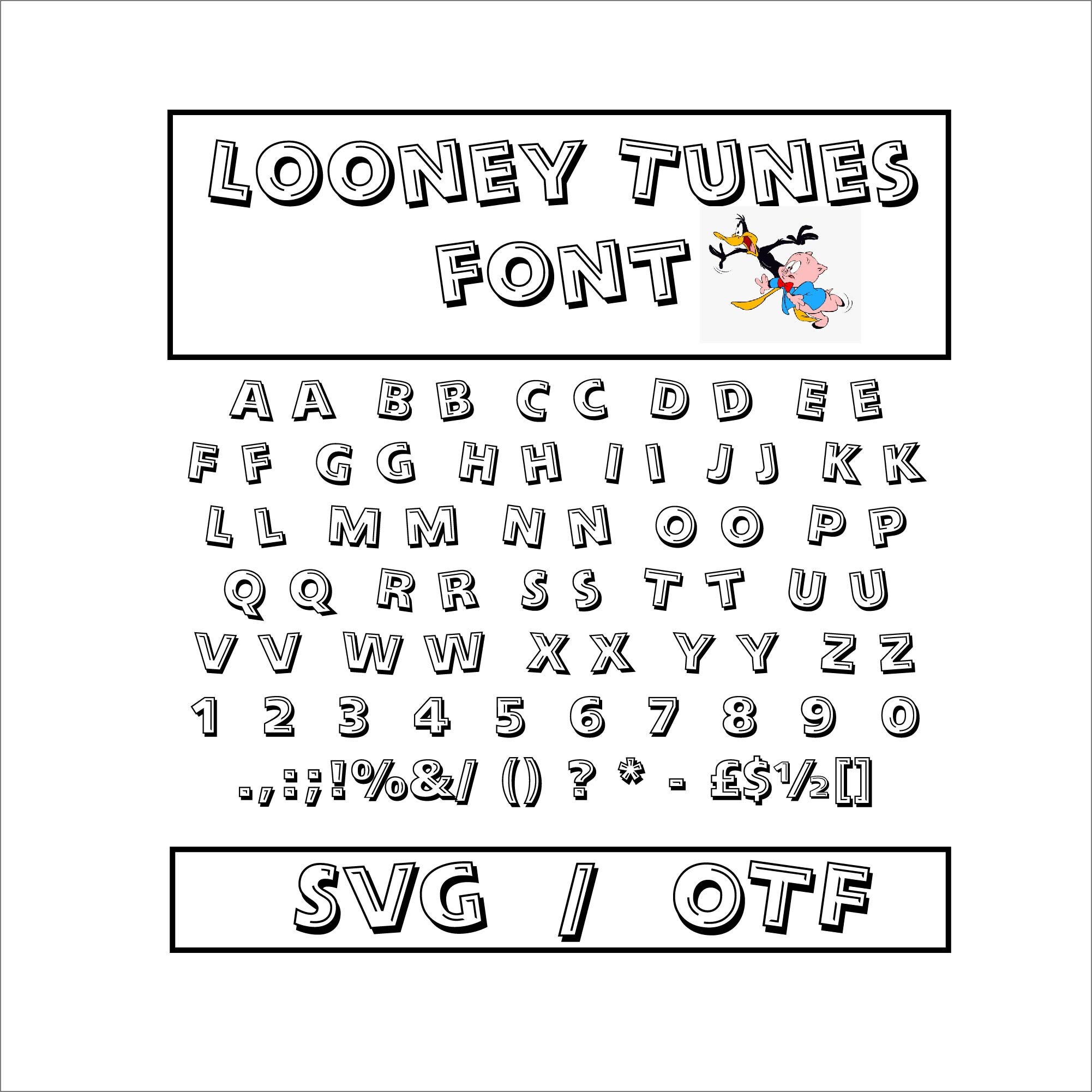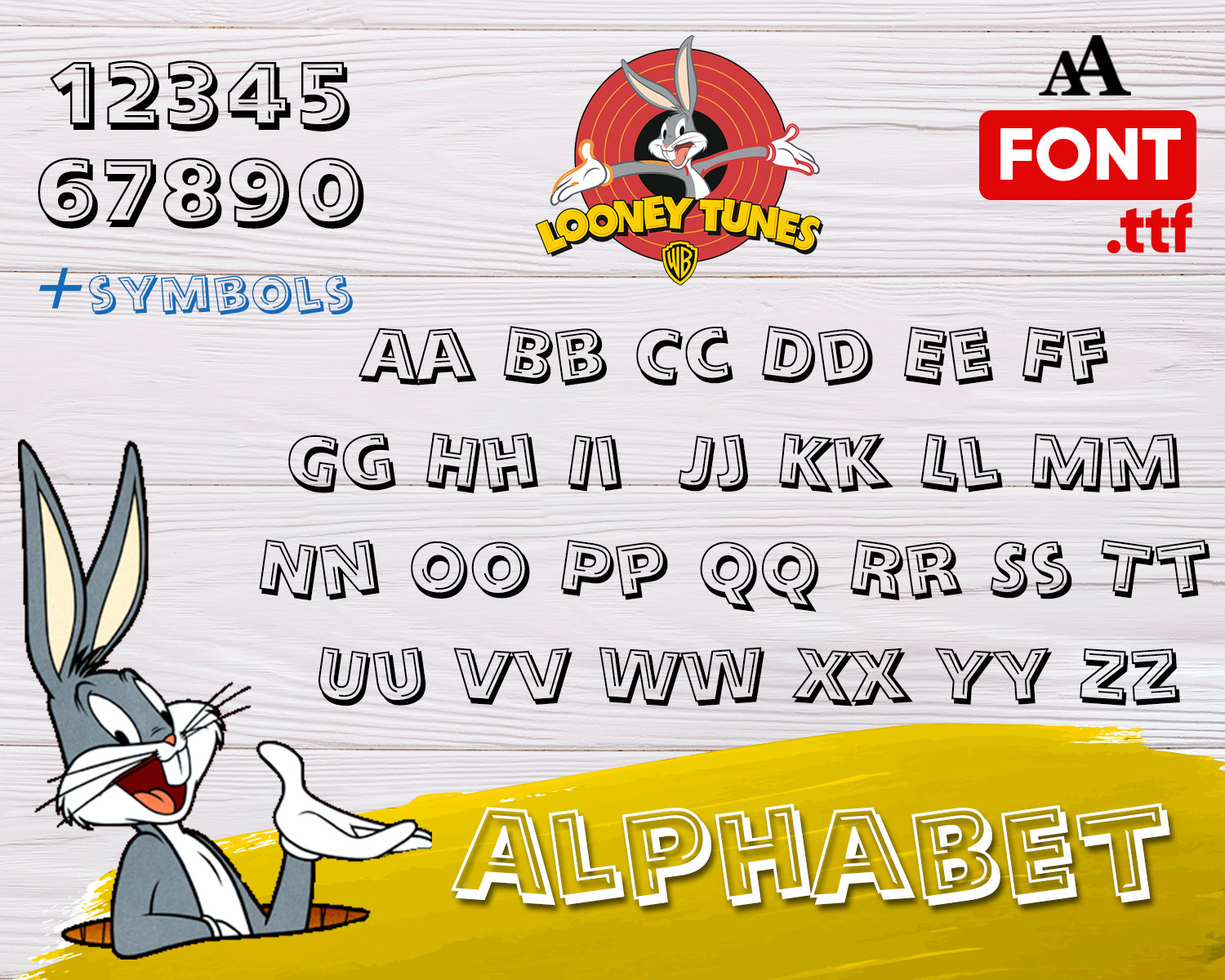
Loony Tunes Font
Loony Tunes Font - Web we are happy to bring you an appealing typeface, looney tunes. It’s totally based on looney tunes movie.
Web we are happy to bring you an appealing typeface, looney tunes. It’s totally based on looney tunes movie.
It’s totally based on looney tunes movie. Web we are happy to bring you an appealing typeface, looney tunes.
Web we are happy to bring you an appealing typeface, looney tunes. It’s totally based on looney tunes movie.
It’s totally based on looney tunes movie. Web we are happy to bring you an appealing typeface, looney tunes.
Web we are happy to bring you an appealing typeface, looney tunes. It’s totally based on looney tunes movie.
It’s totally based on looney tunes movie. Web we are happy to bring you an appealing typeface, looney tunes.
Web we are happy to bring you an appealing typeface, looney tunes. It’s totally based on looney tunes movie.
It’s totally based on looney tunes movie. Web we are happy to bring you an appealing typeface, looney tunes.
Web we are happy to bring you an appealing typeface, looney tunes. It’s totally based on looney tunes movie.
Web We Are Happy To Bring You An Appealing Typeface, Looney Tunes.
It’s totally based on looney tunes movie.